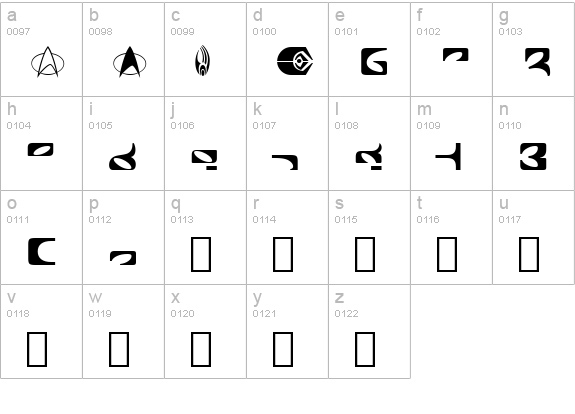
Star Trek Next Pi BT Font Details
Introducing Star Trek Next Pi BT, a mesmerizing font that transports you to the future with its sleek and futuristic design. This font is the perfect companion for any Star Trek enthusiast or sci-fi lover, as it captures the essence of the iconic franchise with its distinctive and futuristic letterforms. Designed with precision and attention to detail, Star Trek Next Pi BT exudes a sense of adventure and exploration. Its clean lines and sharp angles give it a modern and technological feel, while its unique curves and contours add a touch of elegance and sophistication. But what sets Star Trek Next Pi BT apart is its versatility. Whether you're designing a poster for a Star Trek convention, creating a sci-fi themed website, or simply adding a futuristic touch to your personal projects, this font will elevate your designs to the next level. And the best part? Star Trek Next Pi BT is available for free! Yes, you heard that right. This incredible font can be downloaded at no cost from FontsMarket.com, making it accessible to everyone who wants to bring a touch of the future into their creative endeavors. So don't miss out on this opportunity to enhance your designs with the magic of Star Trek Next Pi BT. Download it now for free at FontsMarket.com and embark on a journey through the stars with this captivating and dynamic font. May your designs boldly go where no designs have gone before!